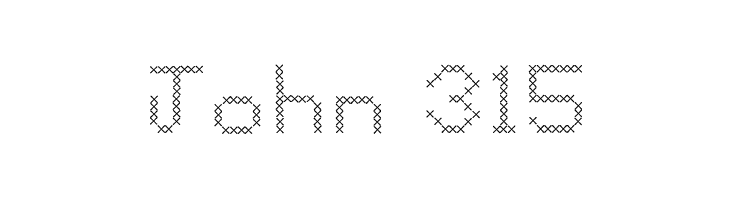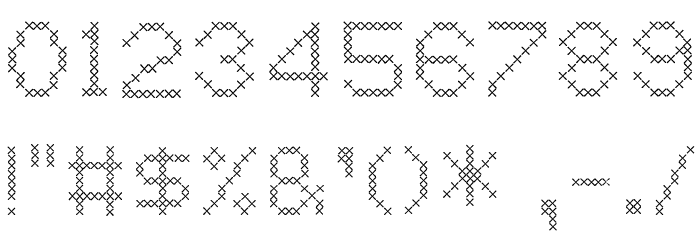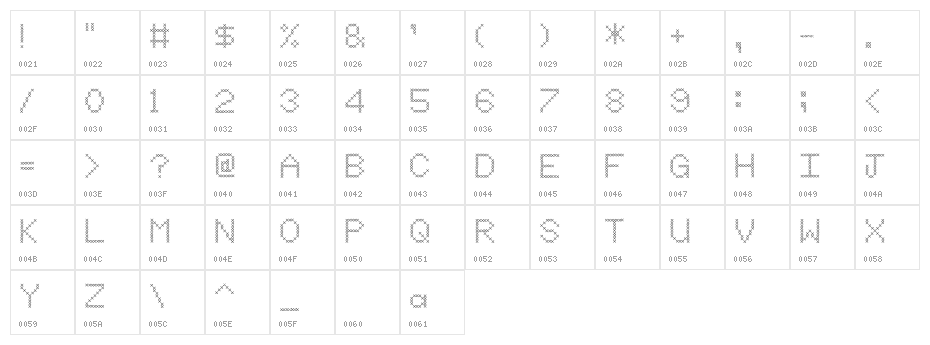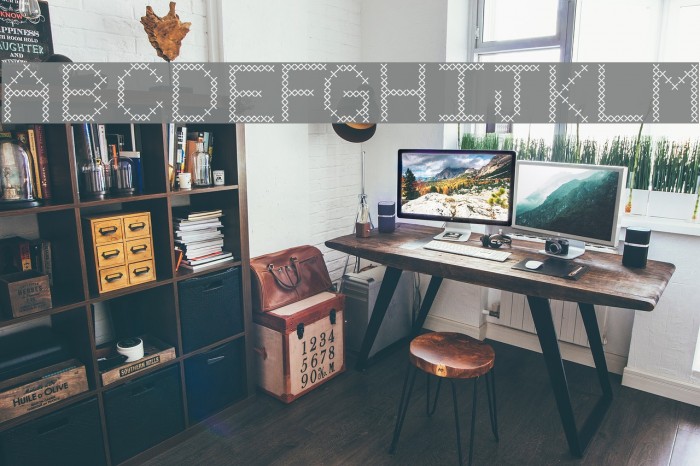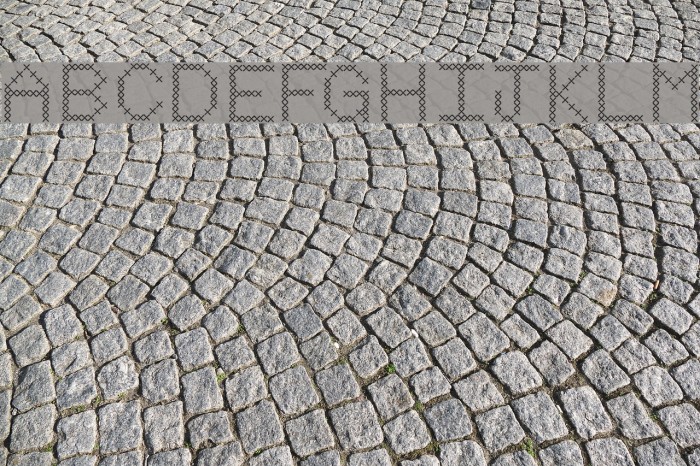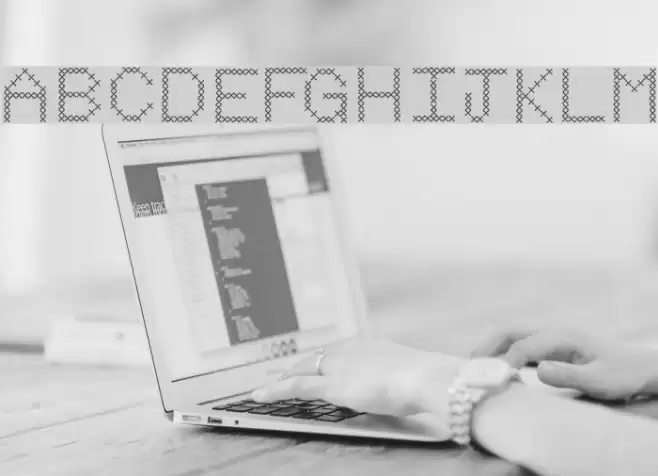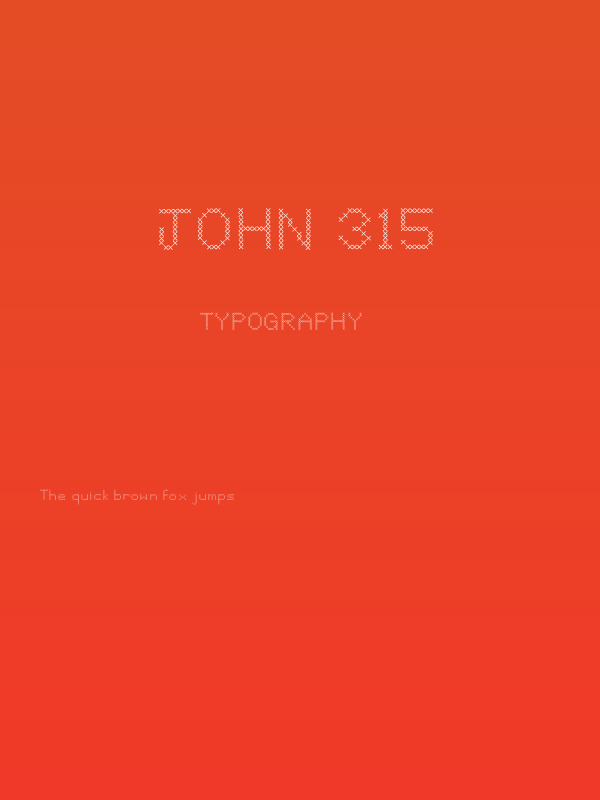
John 315 Font
John 315 Description
This font features a unique cross-stitch pattern that mimics the appearance of embroidery. Each character is composed of intersecting diagonal lines, creating a textured and handcrafted look. The uppercase and lowercase letters maintain a consistent style, with a geometric and structured form. Numbers and special characters follow the same design, ensuring uniformity across all glyphs. The font's distinct style makes it stand out, offering a blend of traditional craft with modern digital typography.
| Proposed Projects | Ideal for craft-themed projects, DIY blogs, embroidery pattern designs, and creative branding that seeks a handmade aesthetic. |